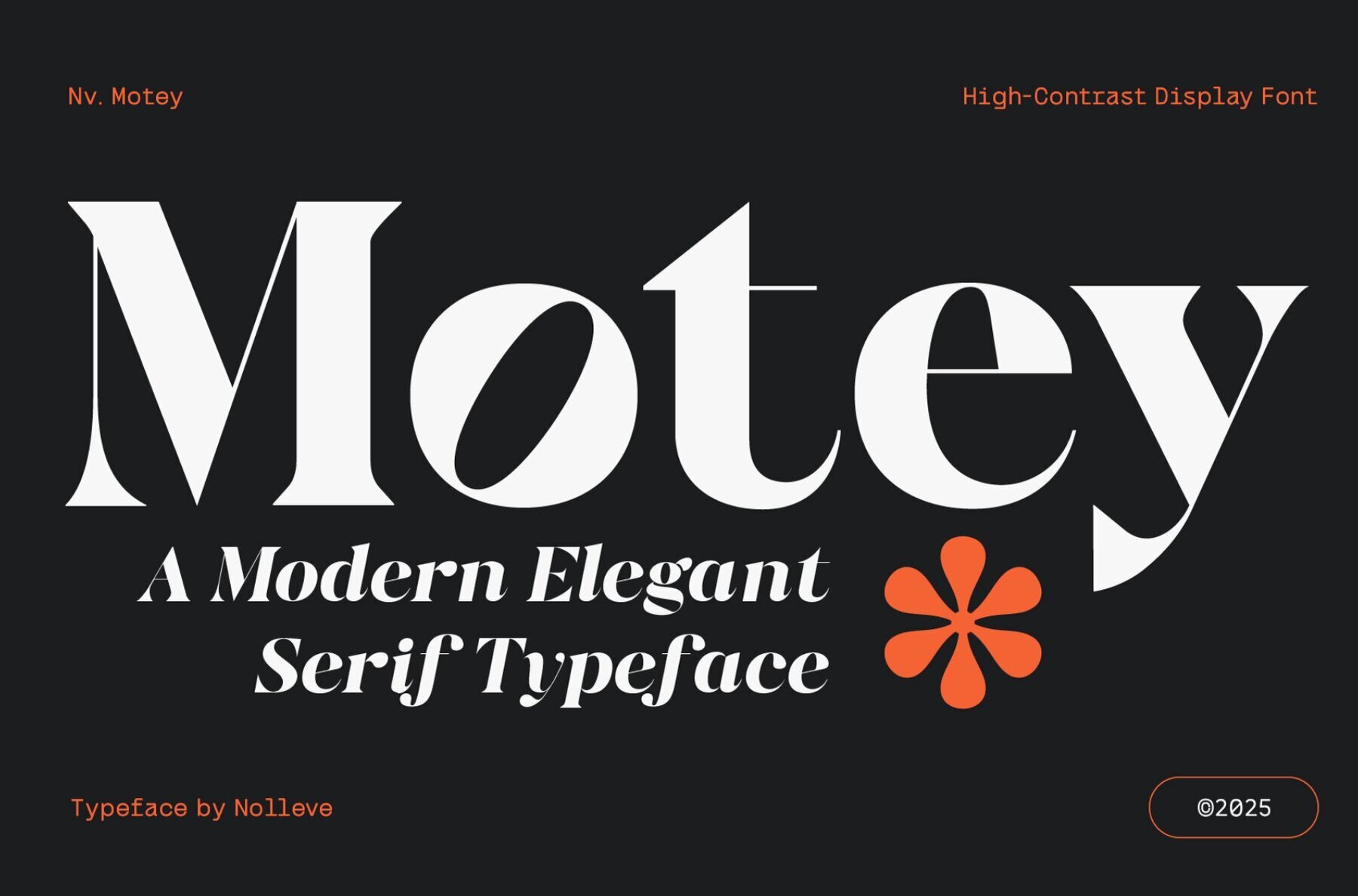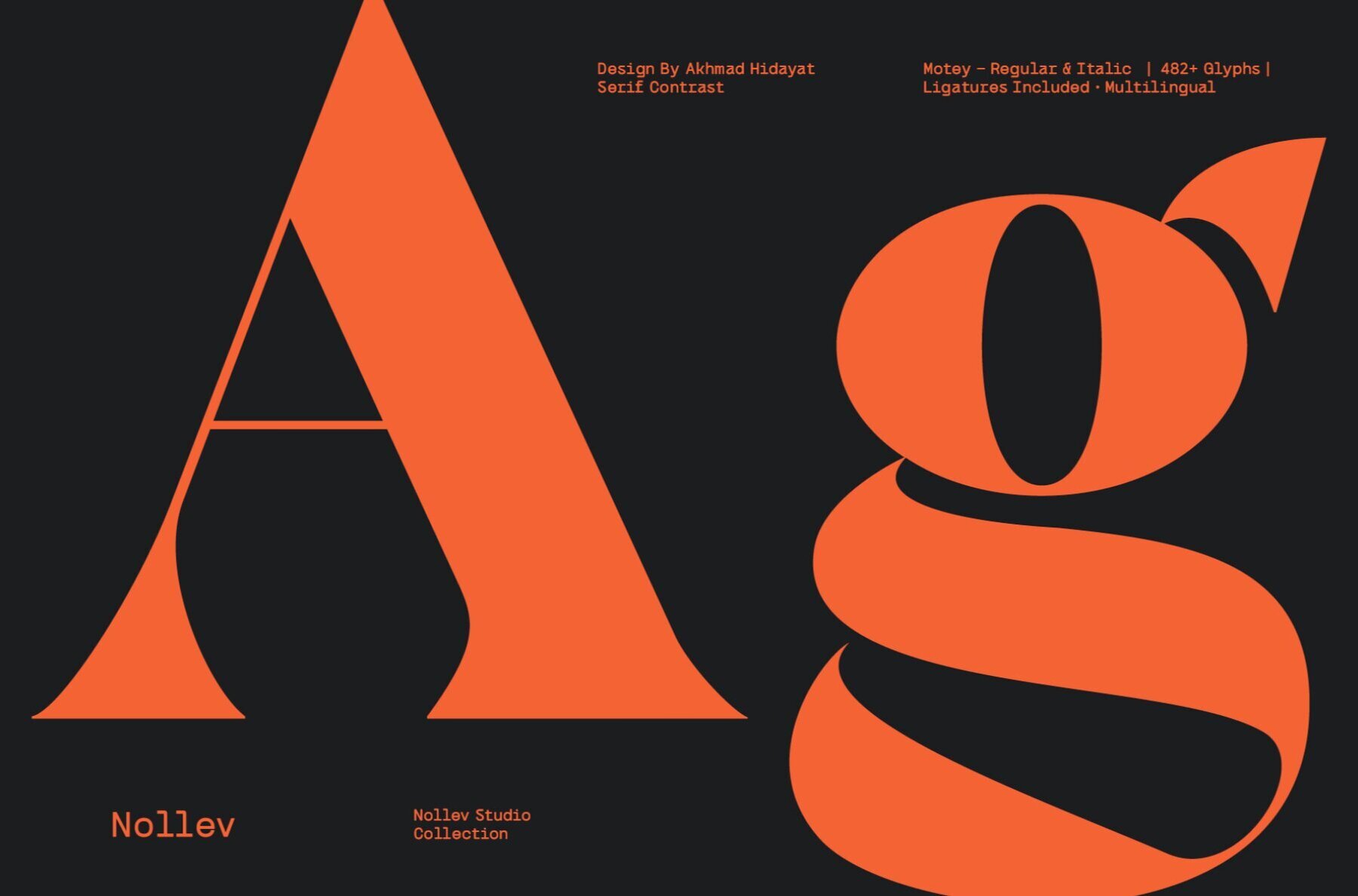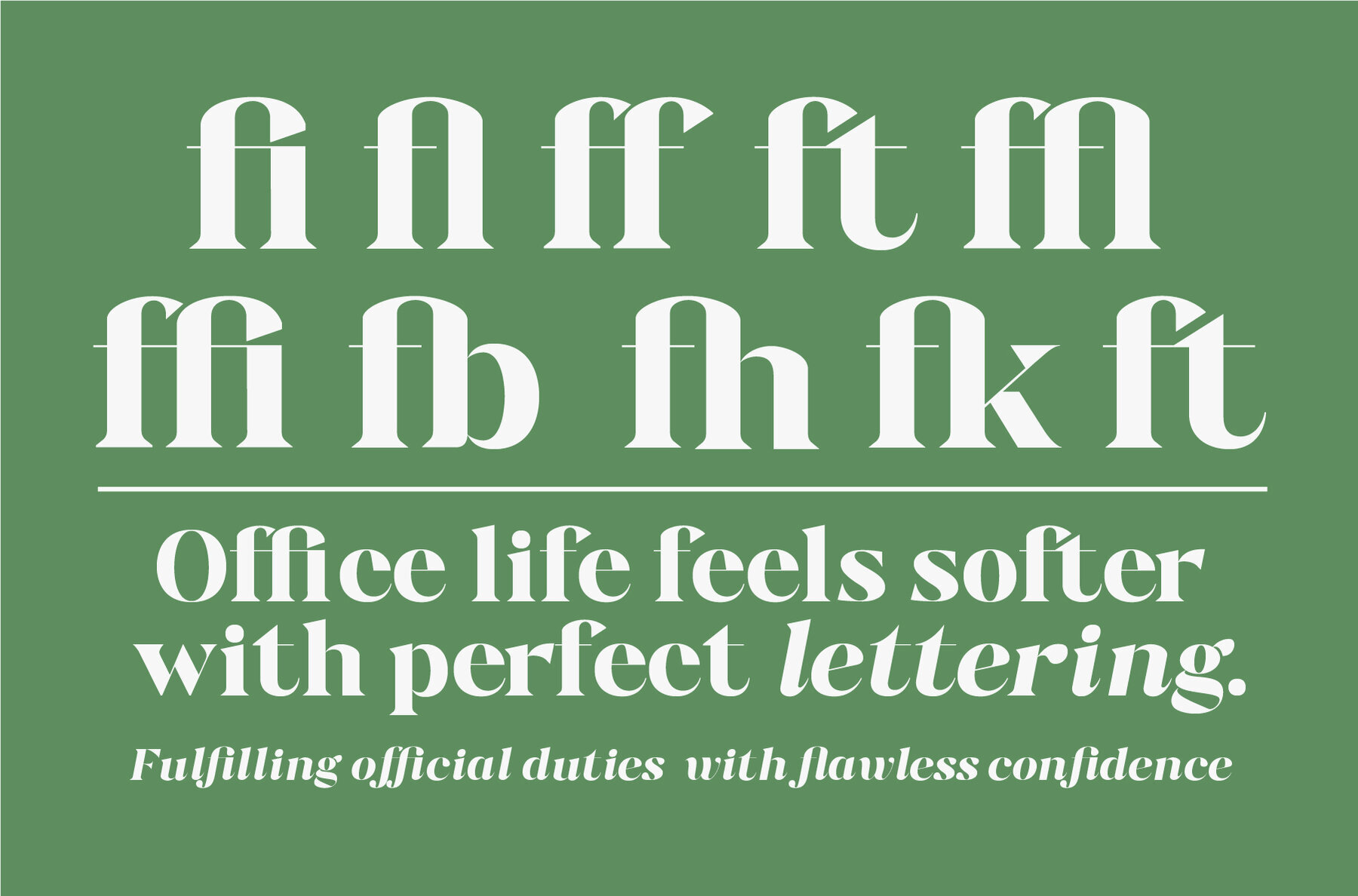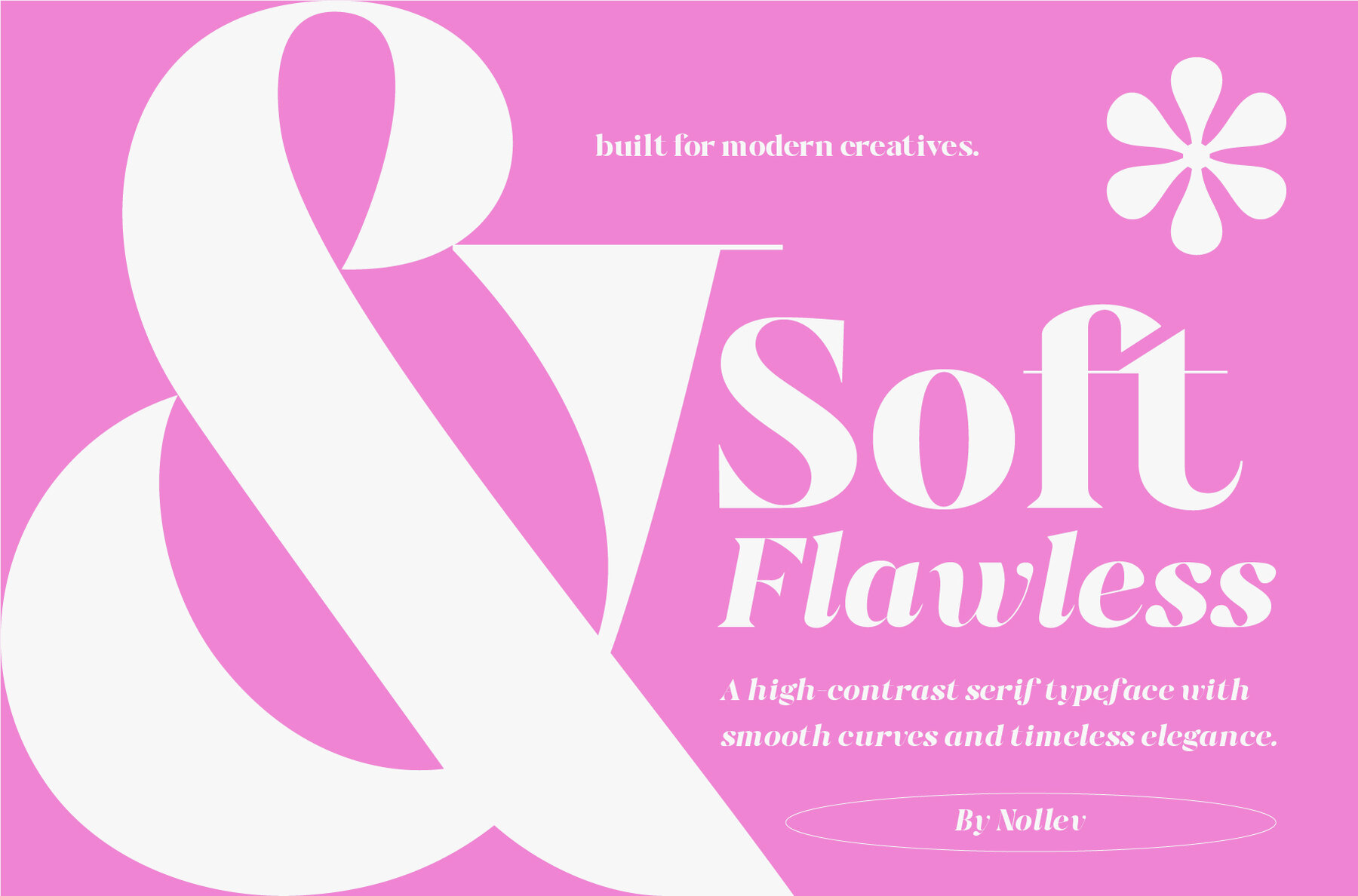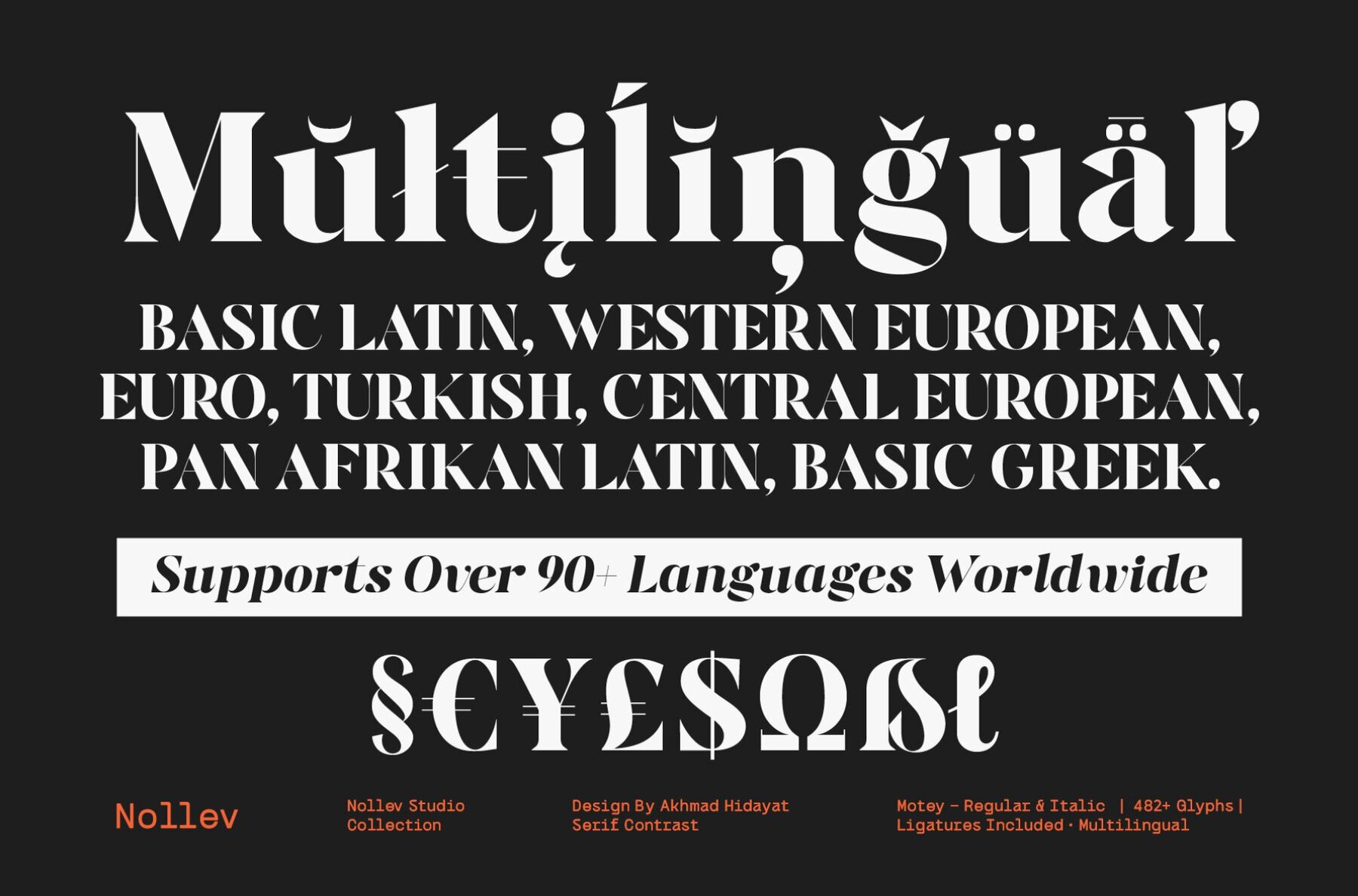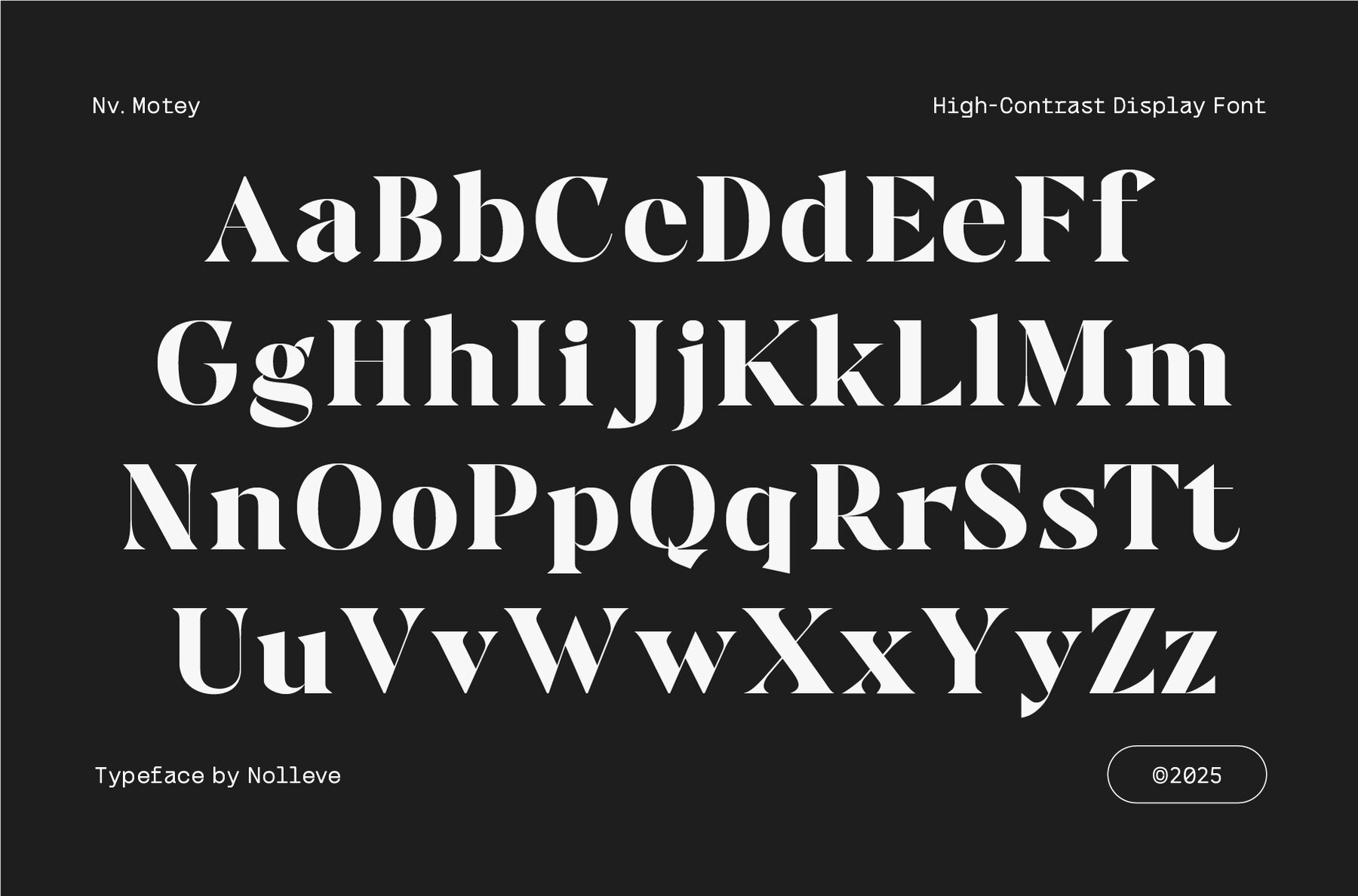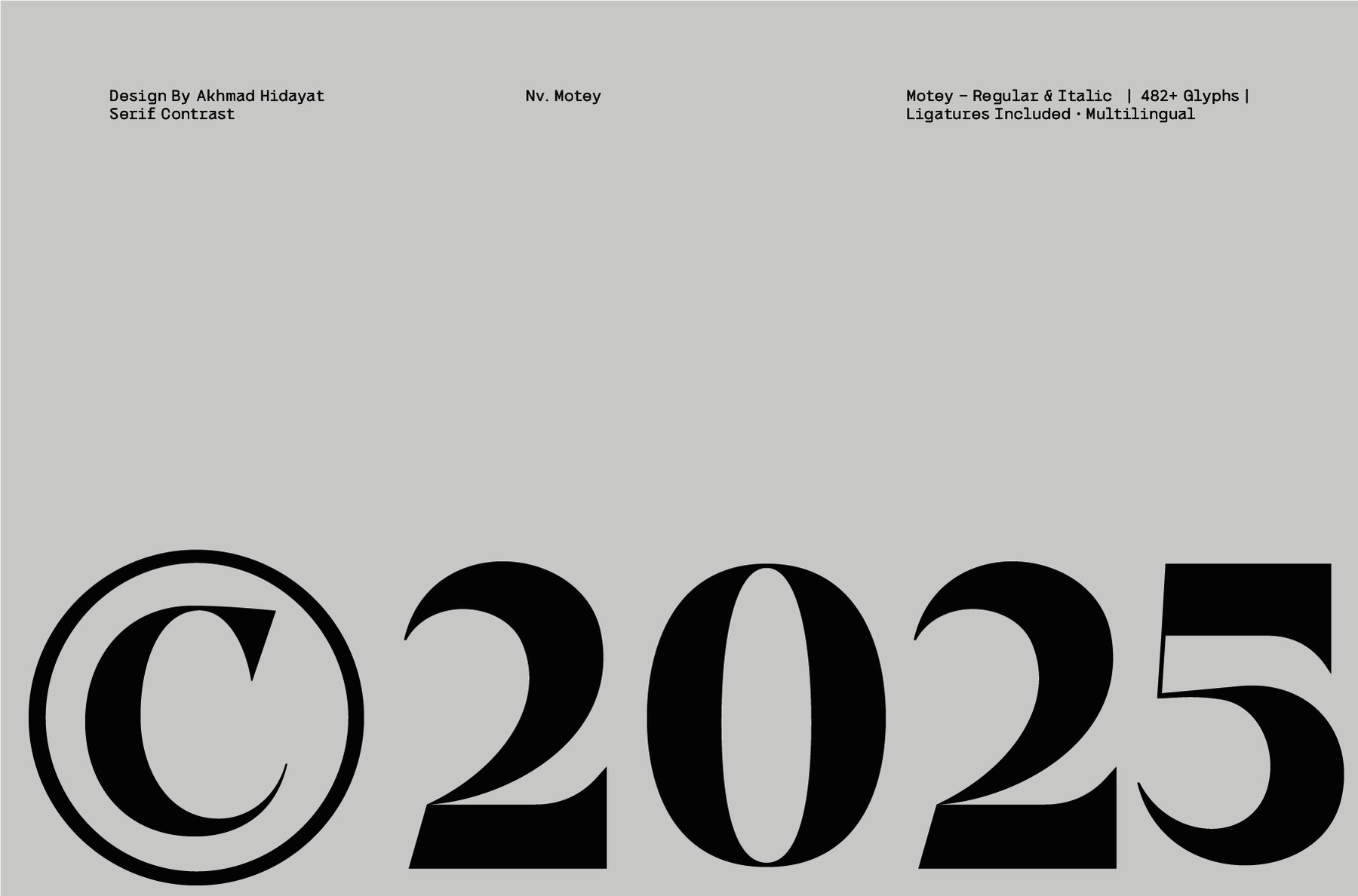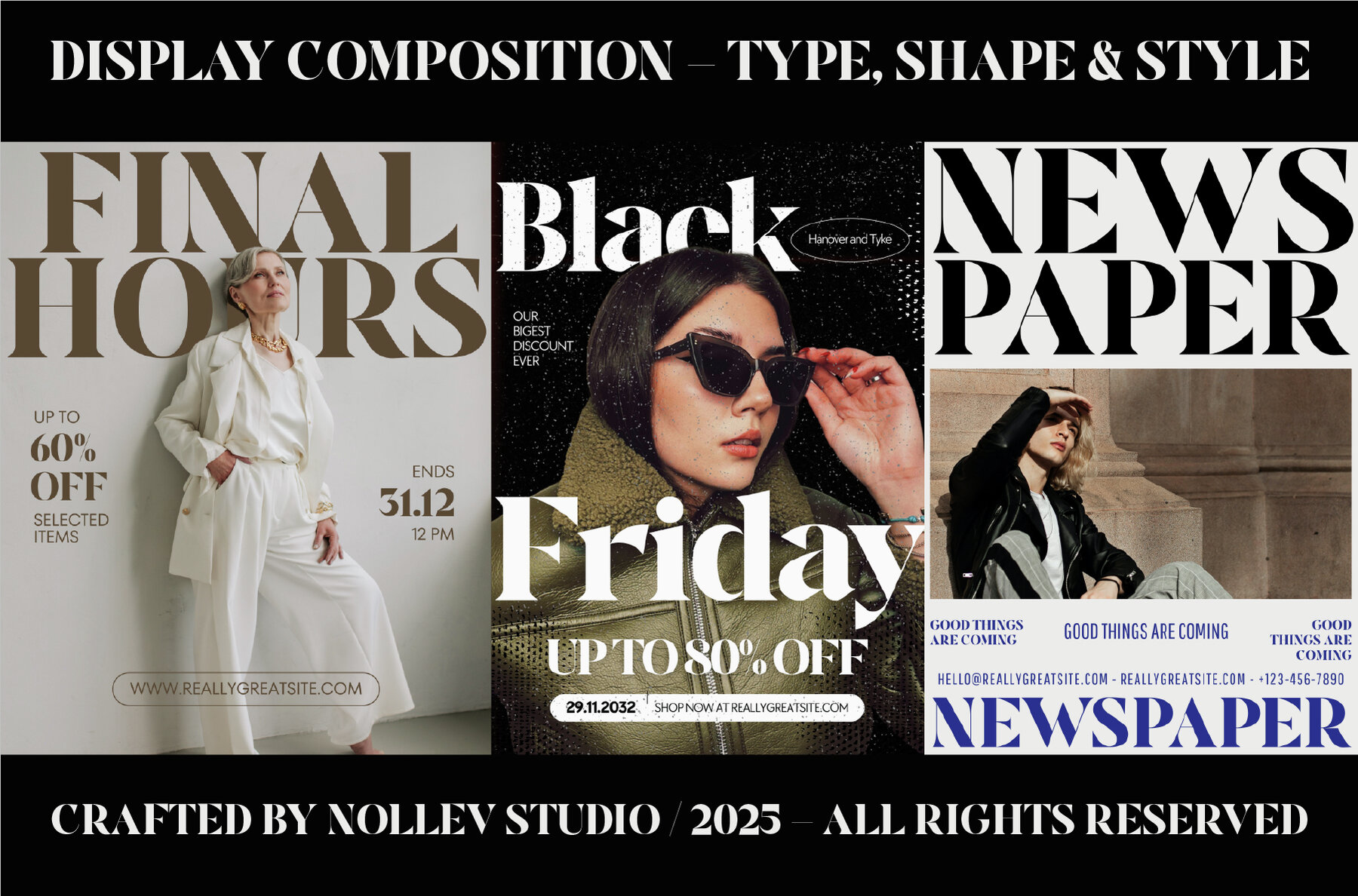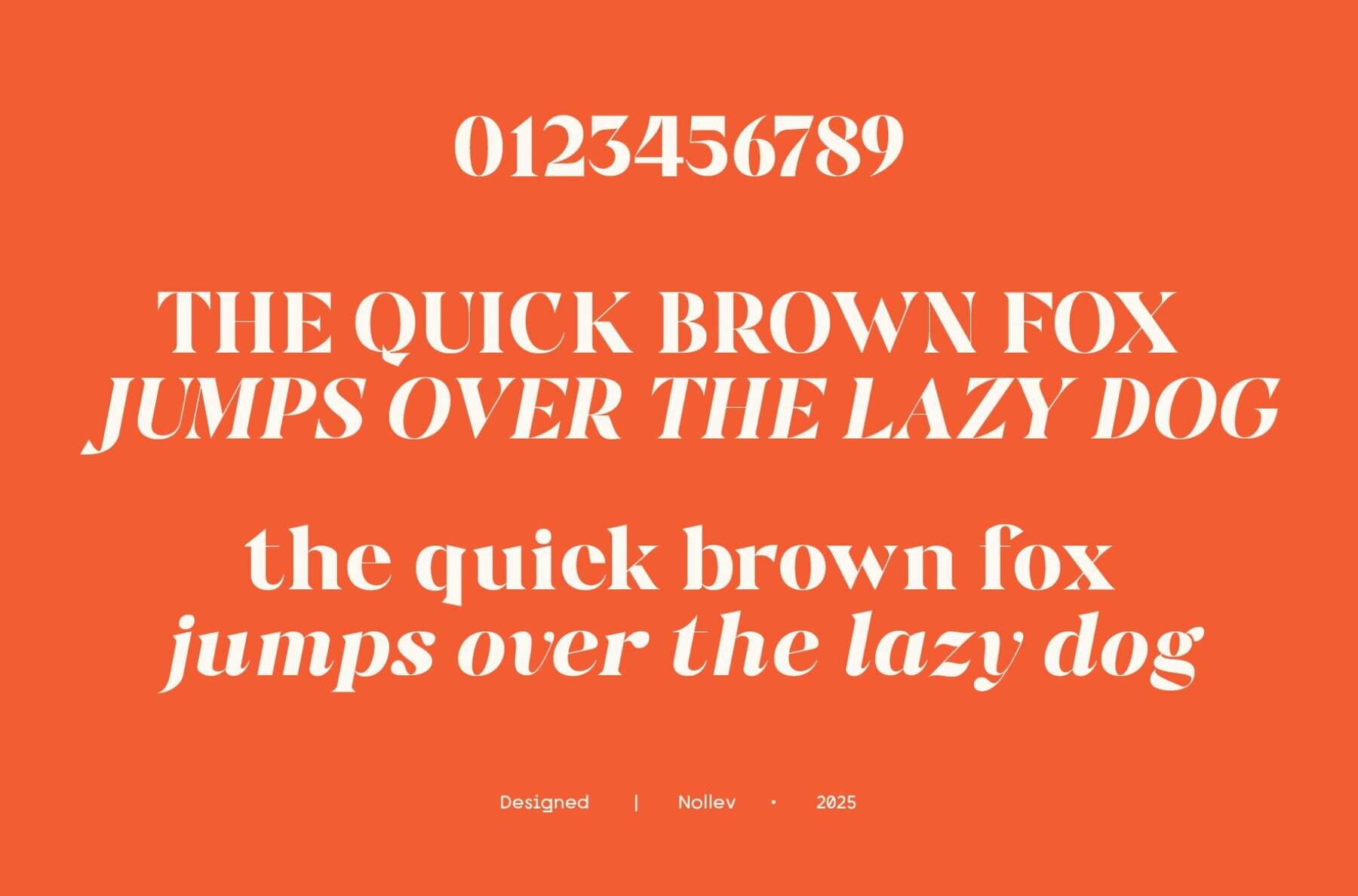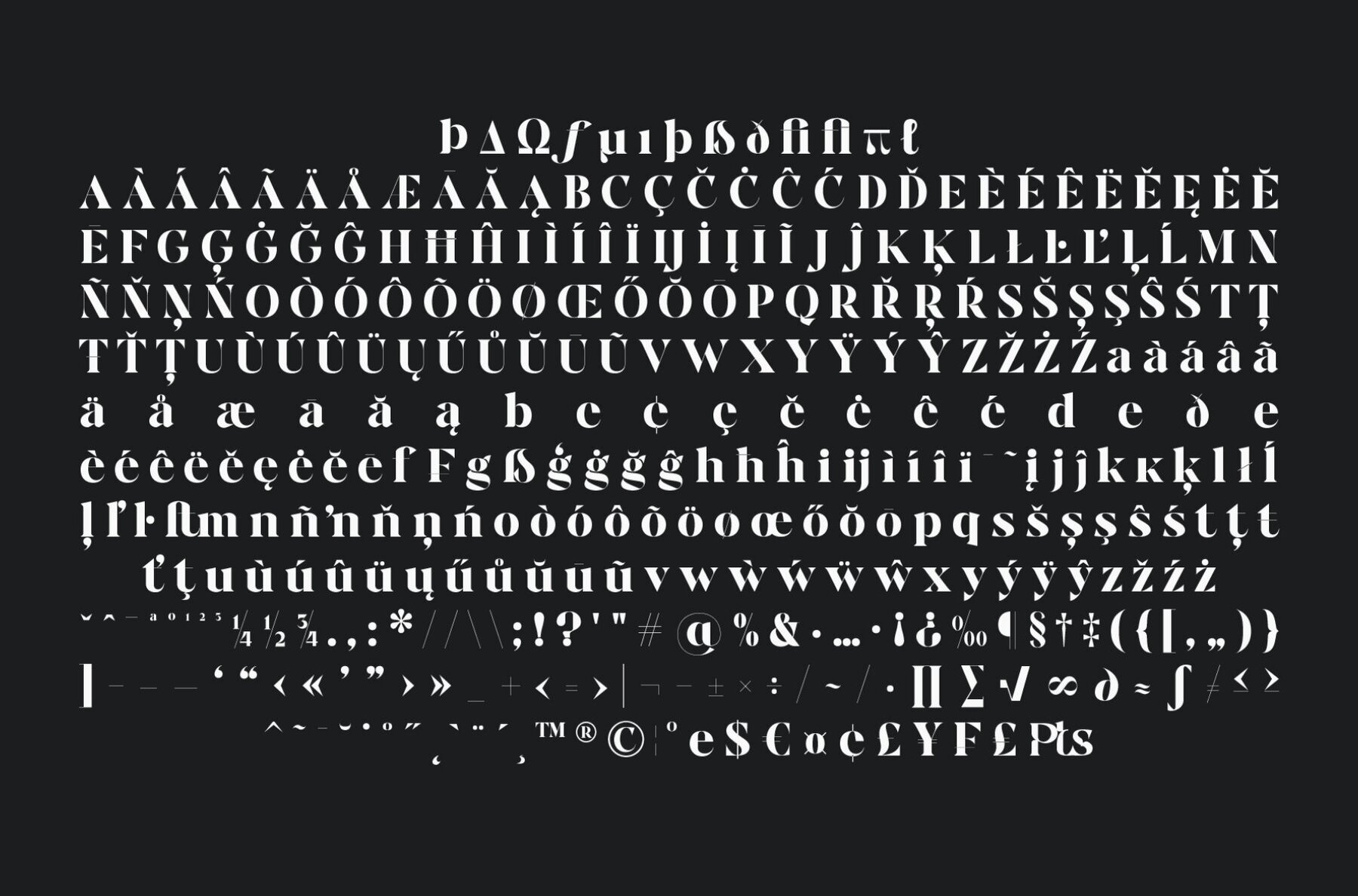
Motey Font
Motey presents a refined blend of classic allure and modern sophistication, captured in each meticulously crafted curve and serif. Tailored for luxury branding, editorial headlines, and fashion campaigns, this typeface lends a bold yet elegant voice to any project. Motey offers two distinguished styles: Regular, which exudes a sharp confidence, and Italic, which provides a graceful flair. This versatility ensures Motey's adaptability from sleek magazine covers to high-end logos.Motey: A High-Contrast Serif Typeface
Distinctive Styles
Features and Flexibility